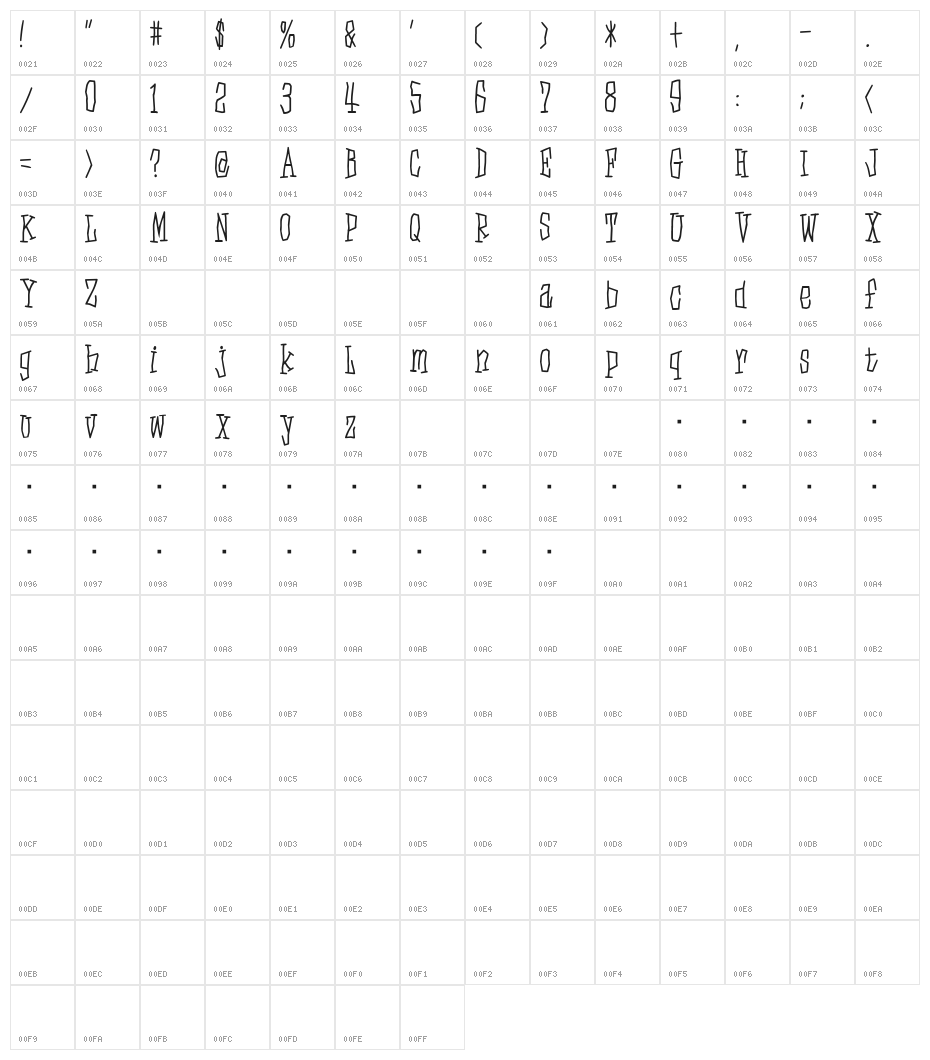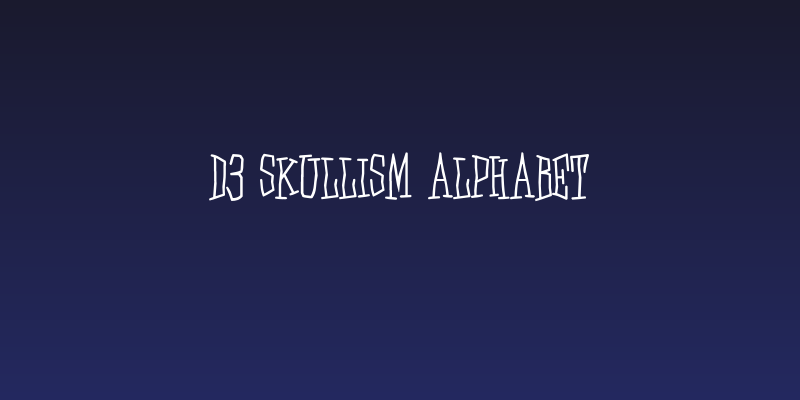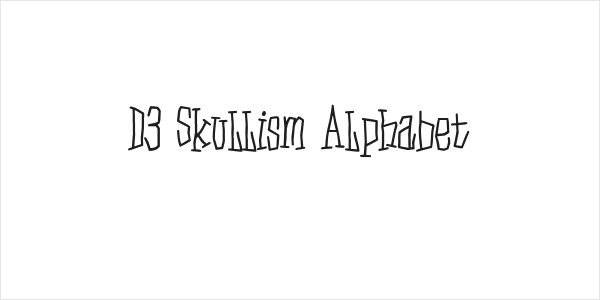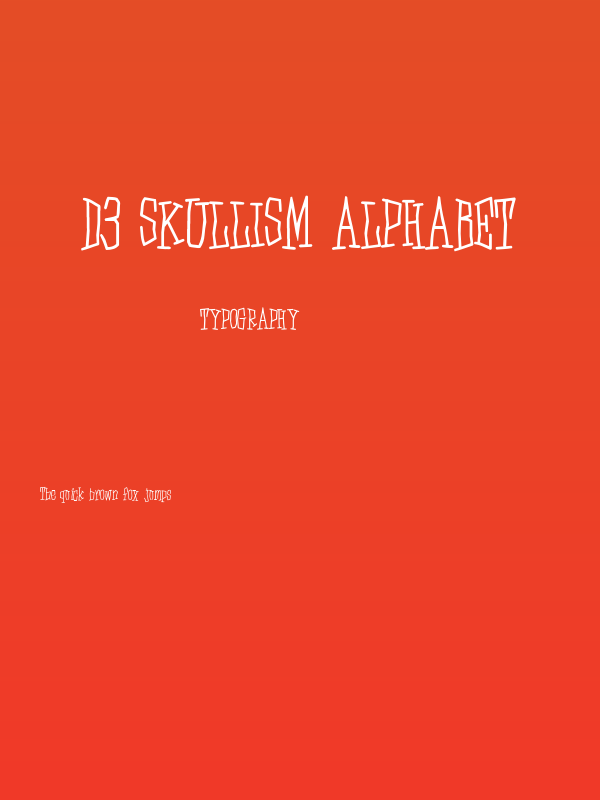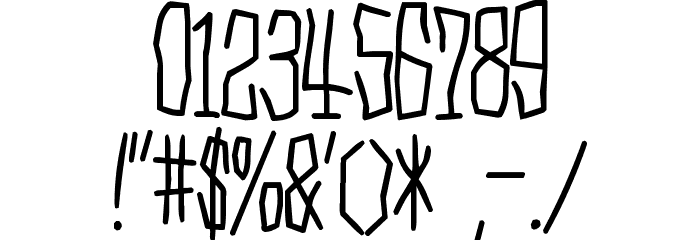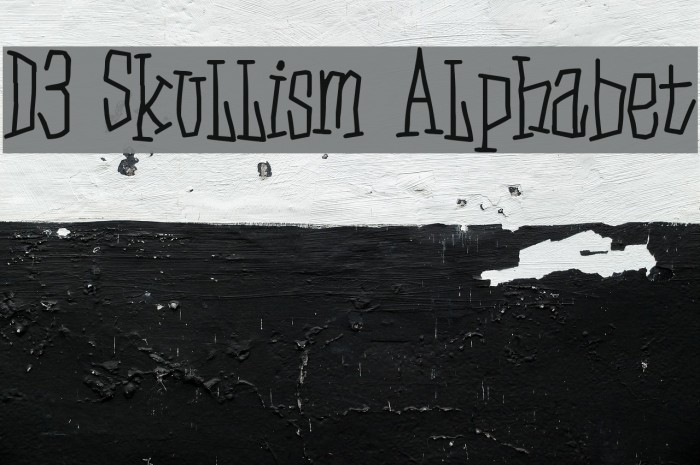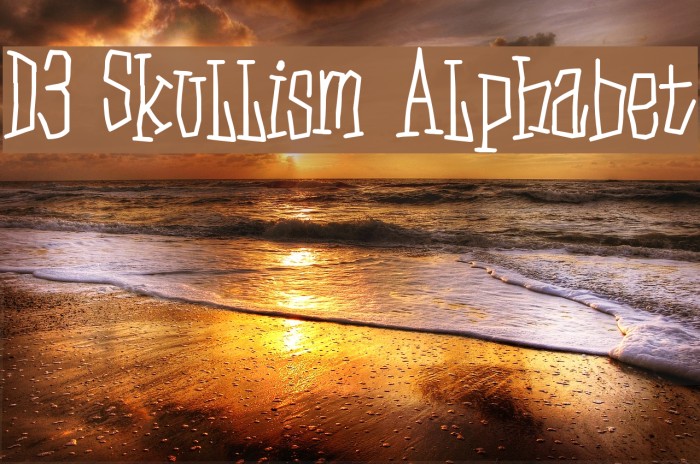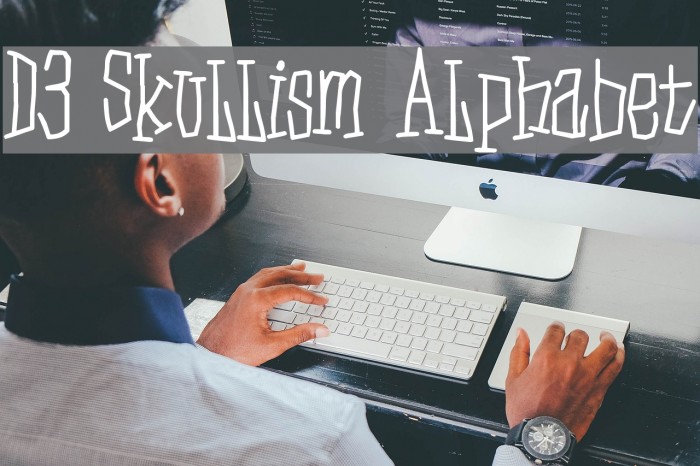
D3 Skullism Alphabet Font
D3 Skullism Alphabet Description
This font features a unique, edgy design with a hand-drawn appearance, characterized by irregular, jagged lines and a slightly distorted structure. The uppercase and lowercase letters maintain a consistent style, with elongated vertical strokes and uneven widths, giving it a rebellious and unconventional feel. The numbers and special characters follow the same aesthetic, adding to the font's cohesive look. Its distinct style makes it stand out, ideal for projects that require a bold, artistic touch. The font's playful yet dark vibe can be used to convey creativity and individuality.
| Use Case | Logos, Headlines, Posters |
| Proposed Projects | Ideal for album covers, posters, street art, and alternative branding projects. |